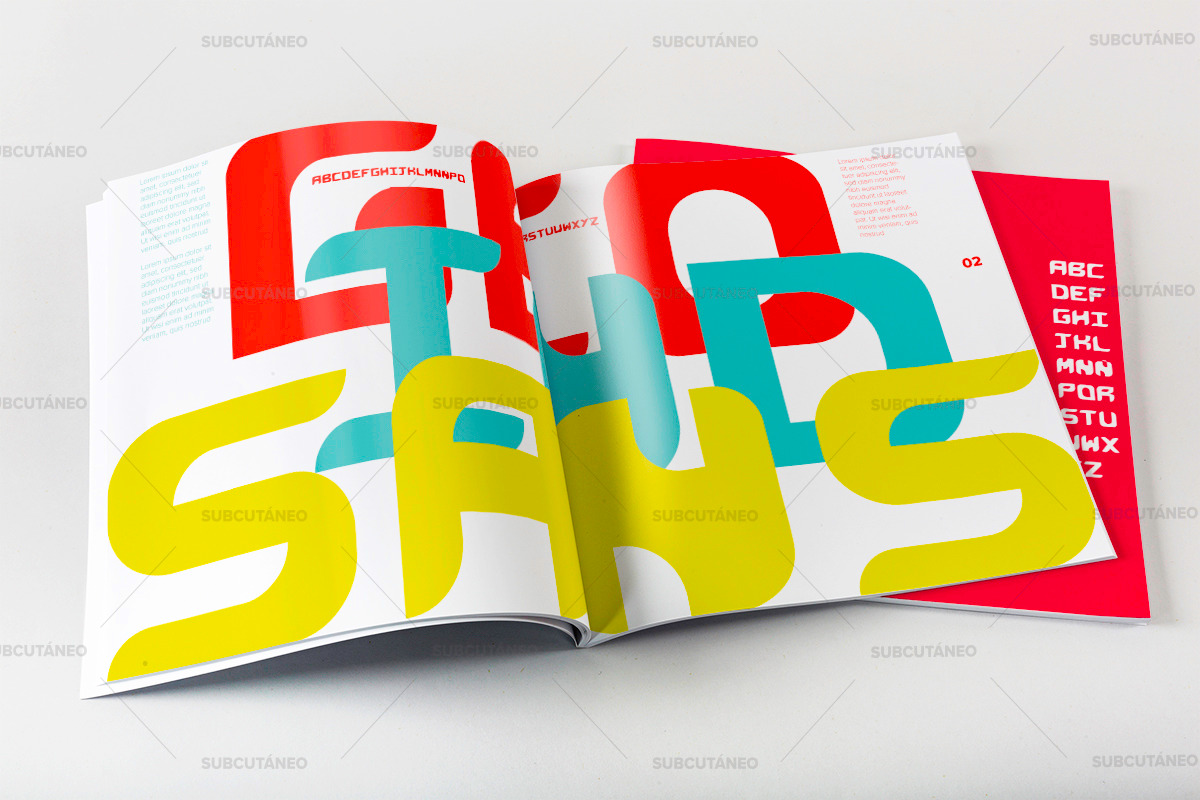
GEO IND SANS (Display) Typeface
GEO IND SANS is a typeface created for display and bold compositions. Ideal to mix with other typography and create awesome artworks and editorial work, See the sample, test it below and GET IT NOW